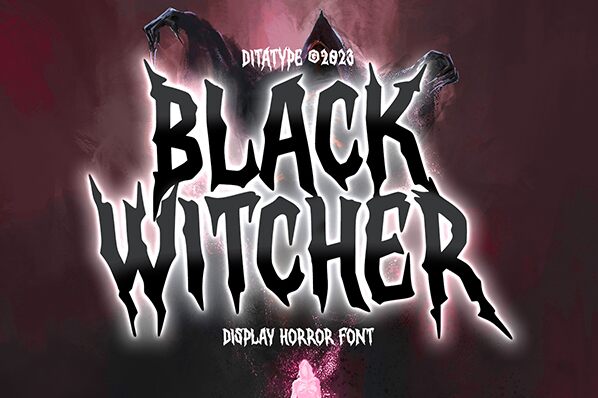
Black Witcher font by Ditatype is a Halloween-themed condensed font with intense, jagged elements which add a dramatic touch to every project. In addition to being mysterious, it is also Gothic-looking, making the typeface suitable for horror inspired projects. Its energy is intimidating and frightening which makes it great for all sorts of related artworks.
This free handwritten font can be used in novel book covers that belong to genres such as fantasy or horror, cover artworks for Halloween albums from popular artists, posters and flyers for the upcoming holiday season, playing card designs and board game logo designs. Share also meet-and-greet events announcement with consistent yet eye-catching content or use Black Witcher in your own online courses that teach people how to draw spooky images.